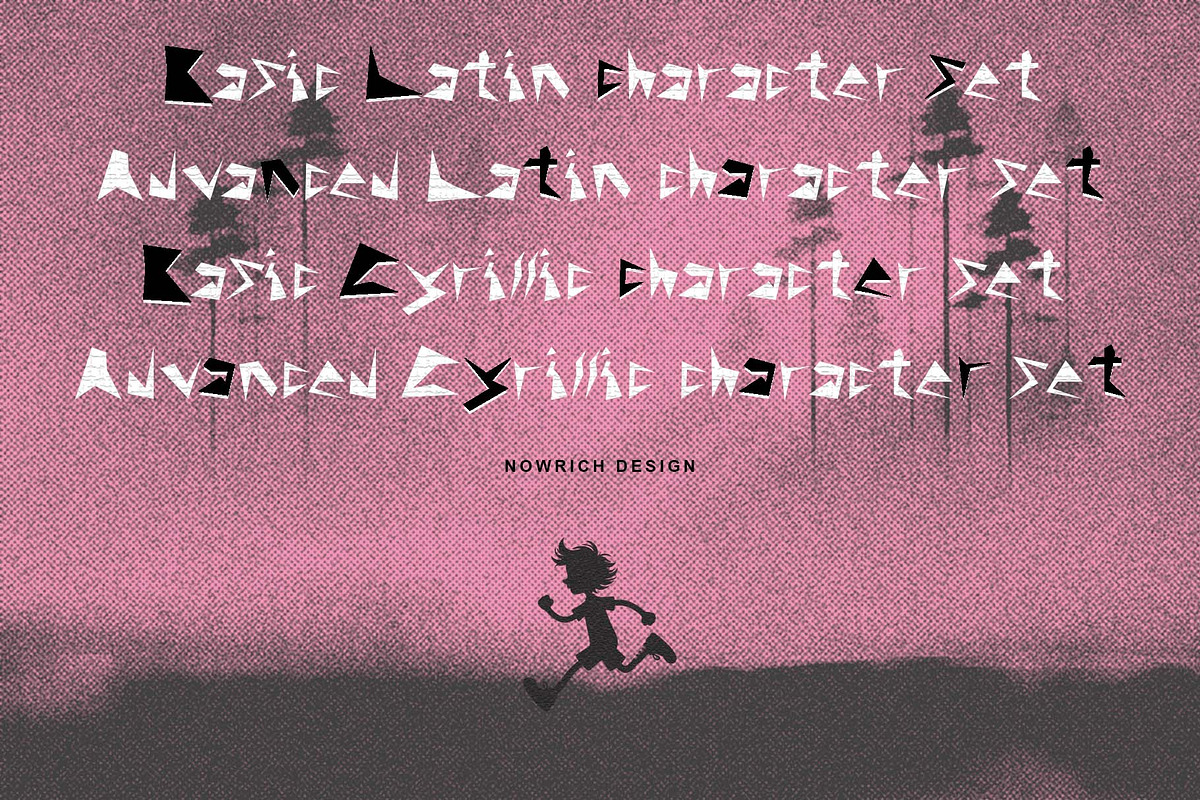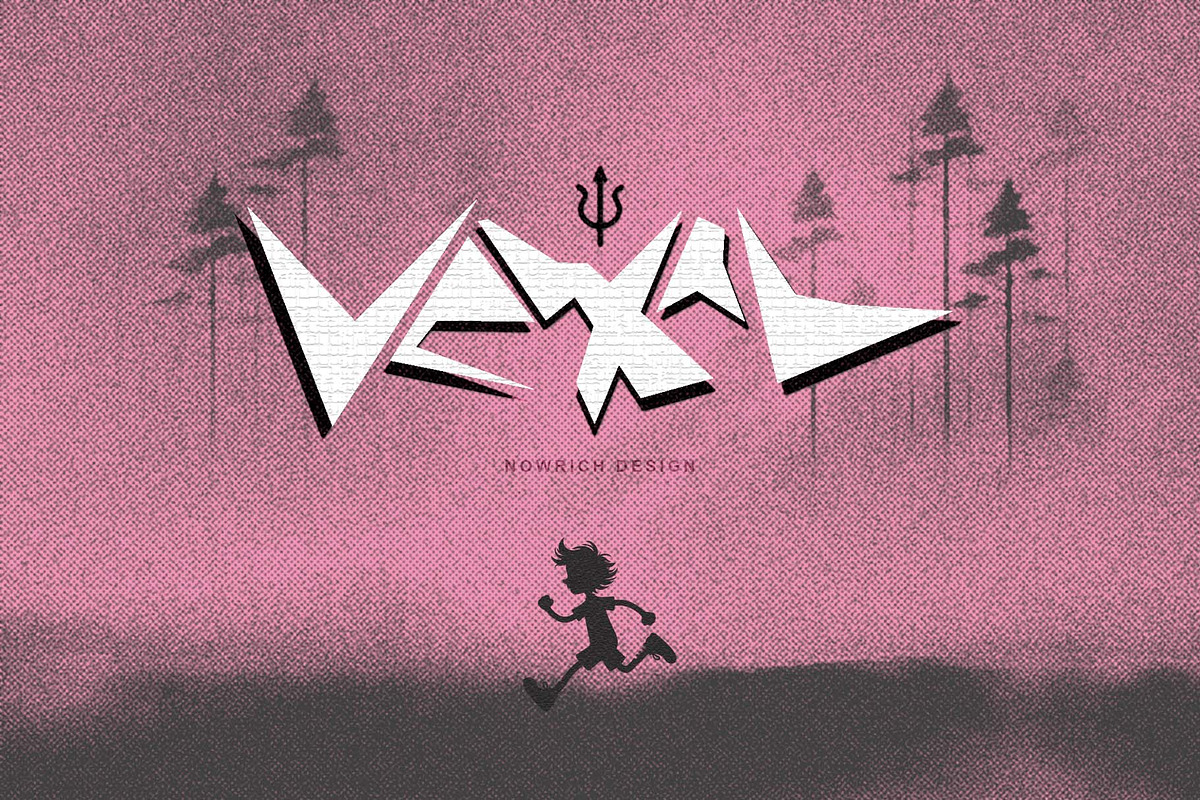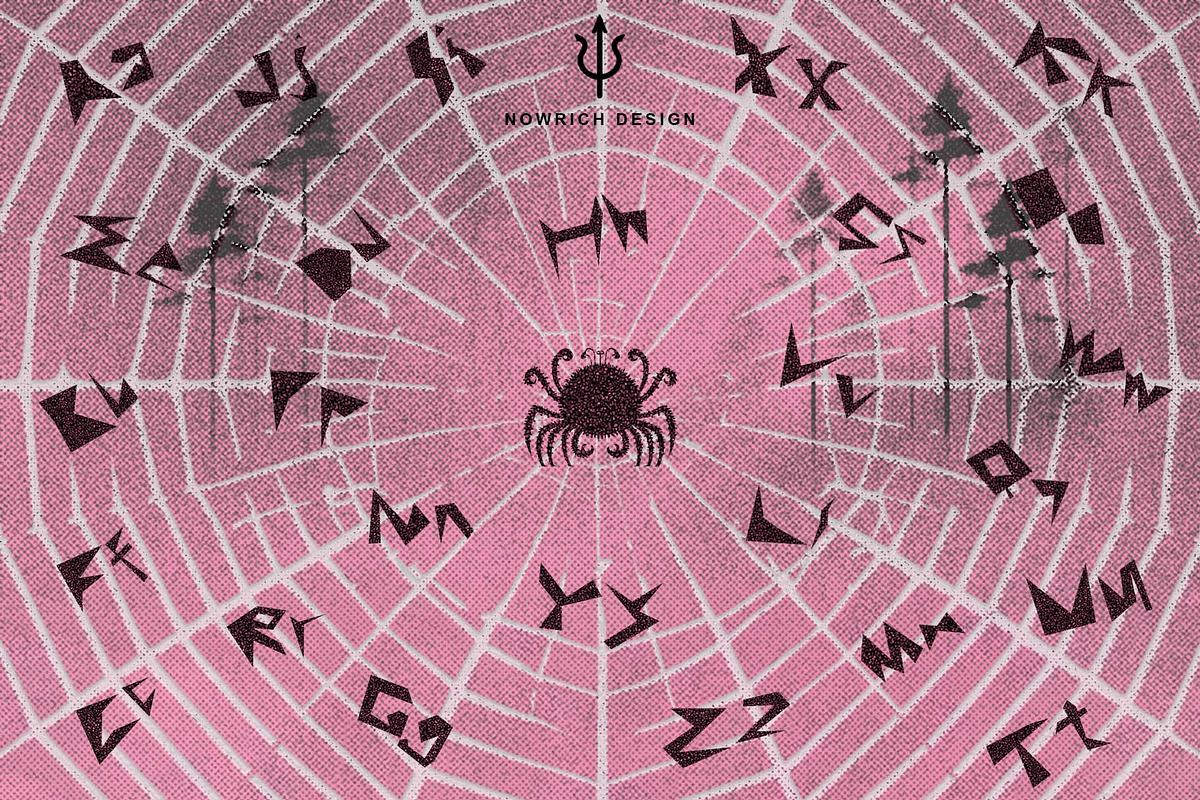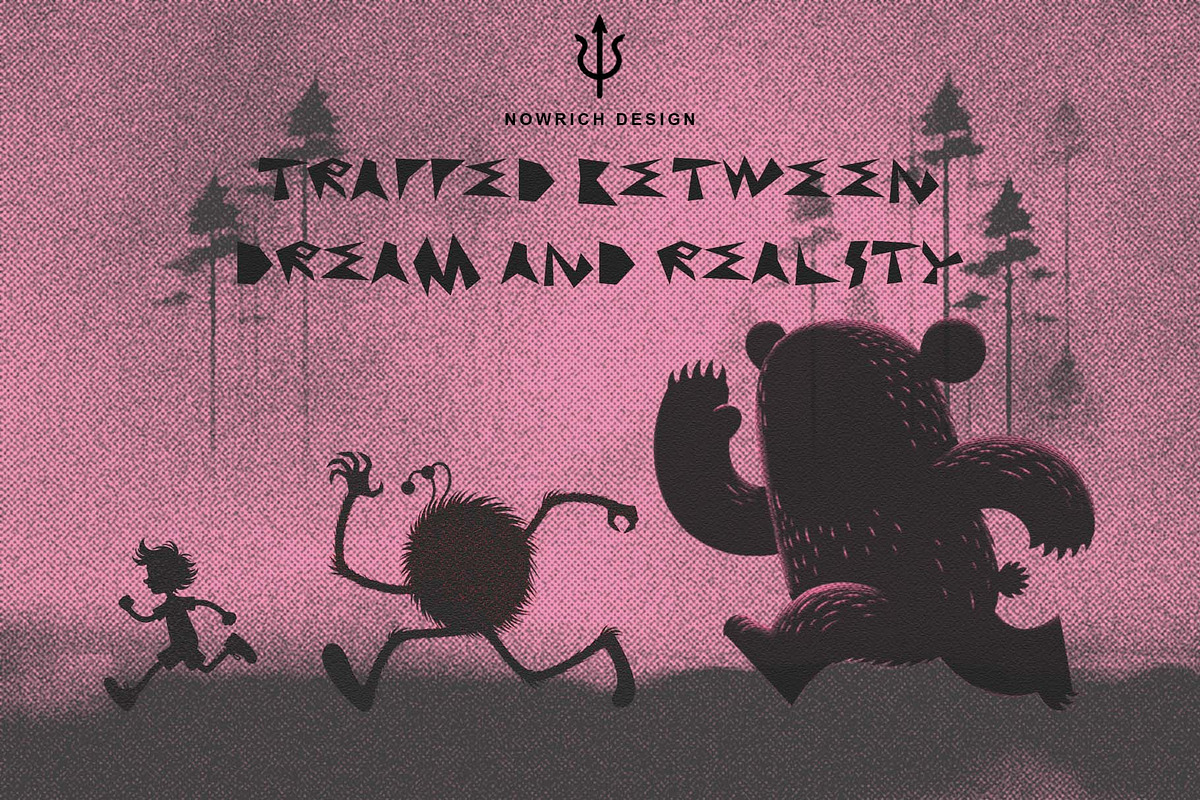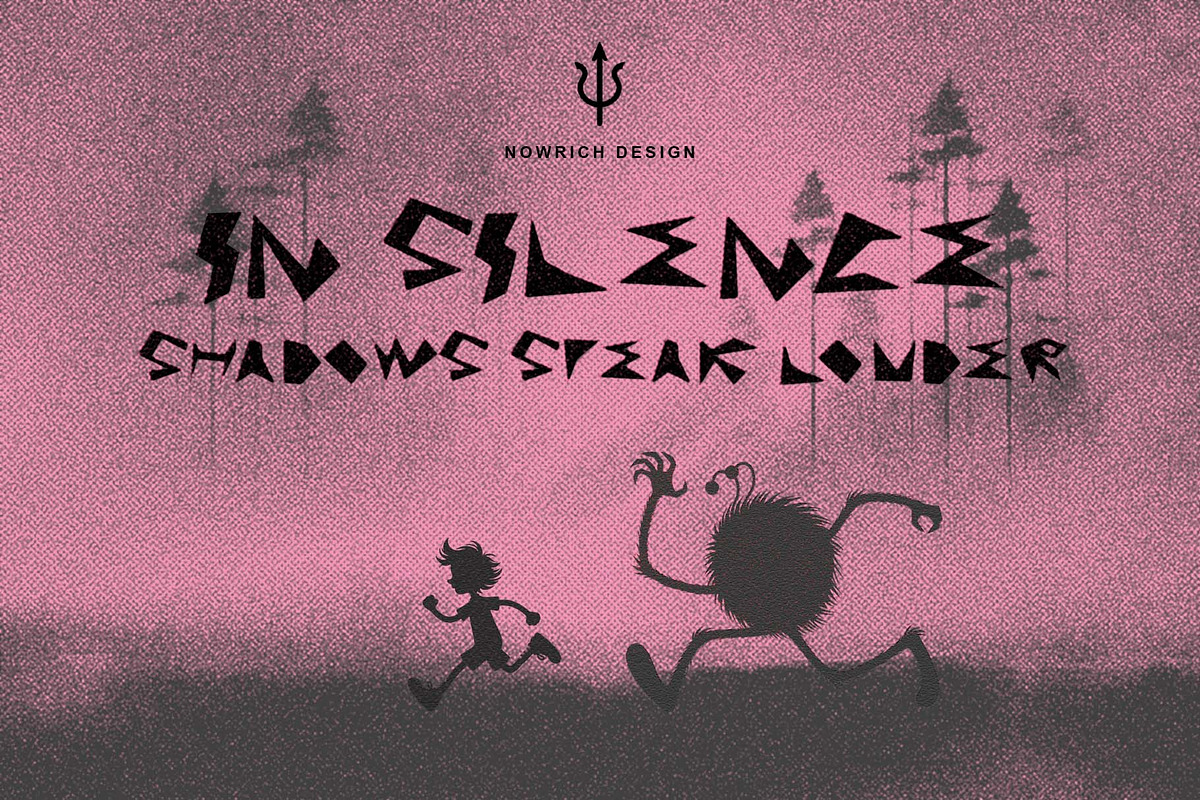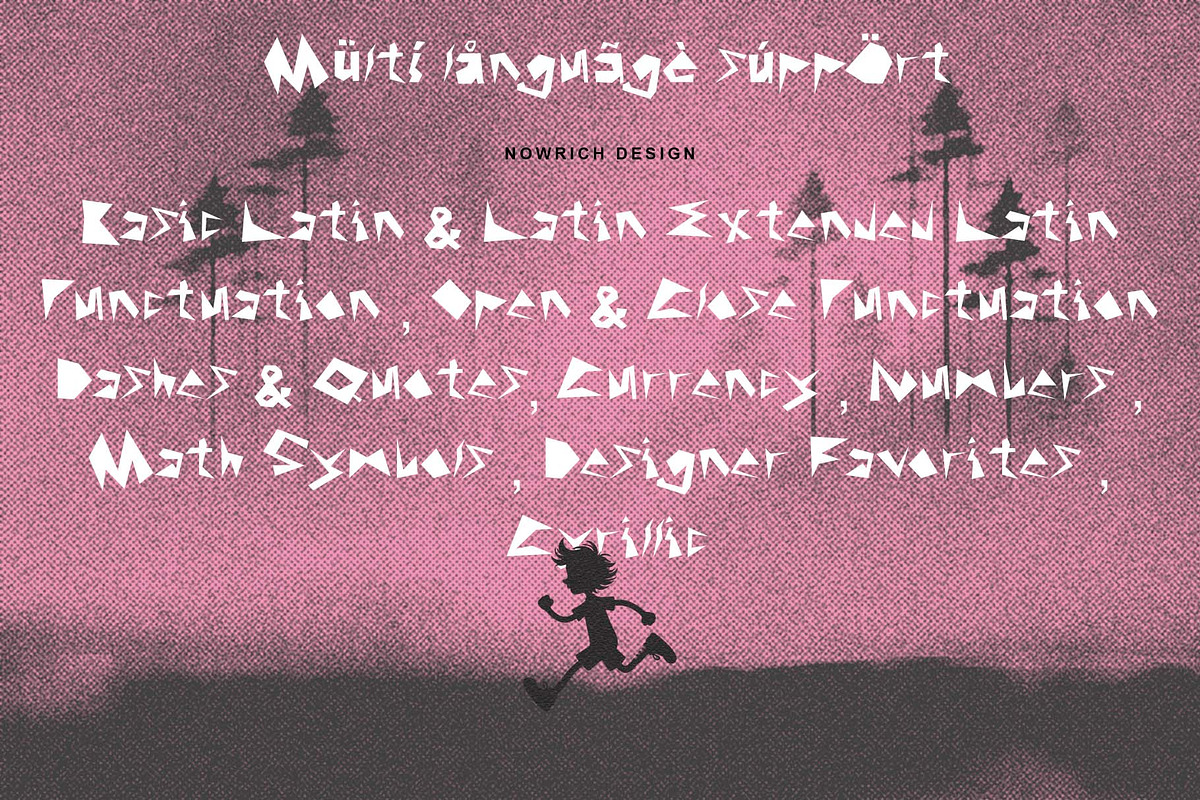
Vexal Game Font
Introducing the Vexal Game Font
The perfect choice for your creative projects! Whether you're designing a game, crafting a striking logotype, or adding flair to printed quotes, this font delivers. Ideal for invitations, cards, product packaging, headers, letterheads, apparel, web design, magazines, books, and more, Vexal Game adds a dynamic and unique touch to all your designs. Elevate your projects and captivate your audience with this versatile and eye-catching font.
Featured :
- Latin
- Basic Latin
- Extended Latin
- Open & Close Punctuation
- Dashes & Quotes
- Currency
- Math Symbols
- Designer Favorites
- Cyrillic
- Multi language support